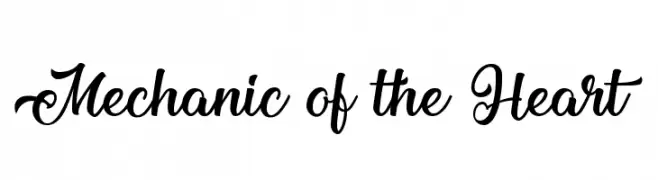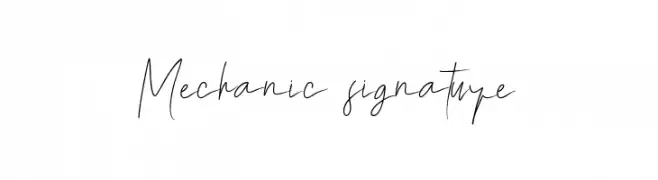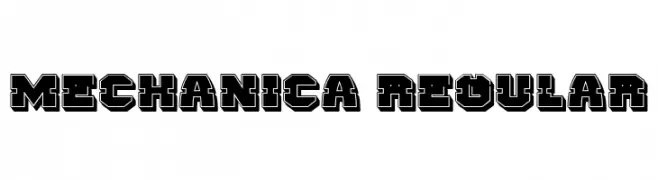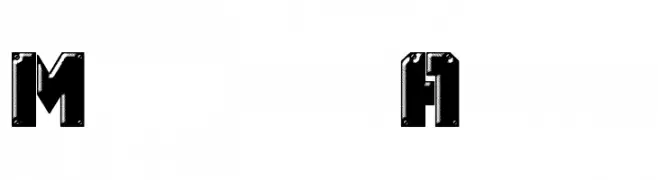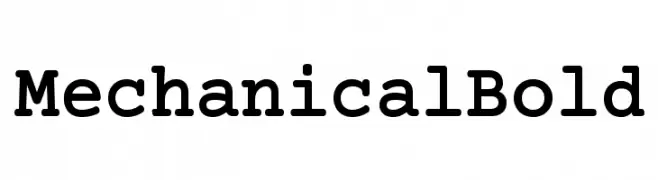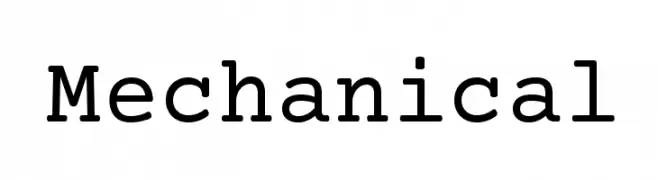
Automotive and mechanic-themed icon dingbat font.
A geometric, monospaced font with a mechanical and futuristic design.
A modern, angular italic font with a mechanical and futuristic design.
An elegant script font with ornate loops and high contrast, ideal for formal uses.
A casual, handwritten font with an elegant, signature-like style.
A bold, geometric font with a mechanical, futuristic style.
A bold, slab serif font with a mechanical and structured design.
A bold, industrial font with a mechanical, three-dimensional style.
A bold, slab serif font with strong, block-like serifs and consistent weight.
A bold, condensed font with a mechanical and utilitarian style.